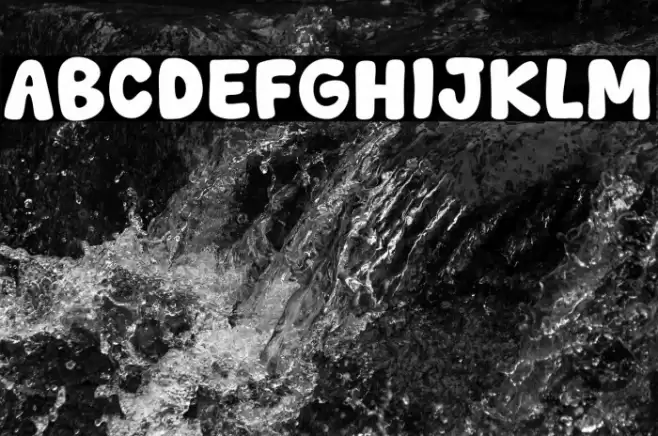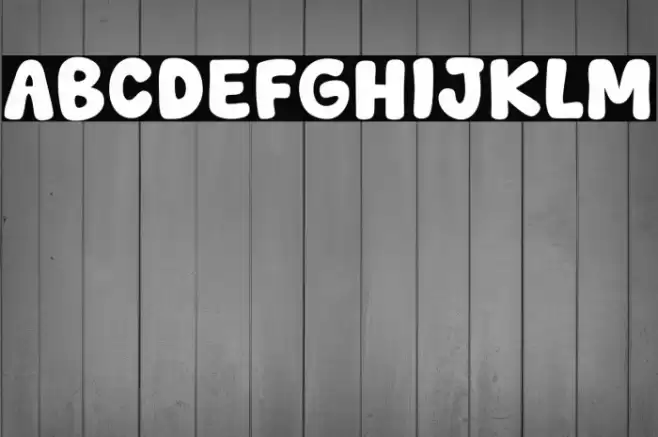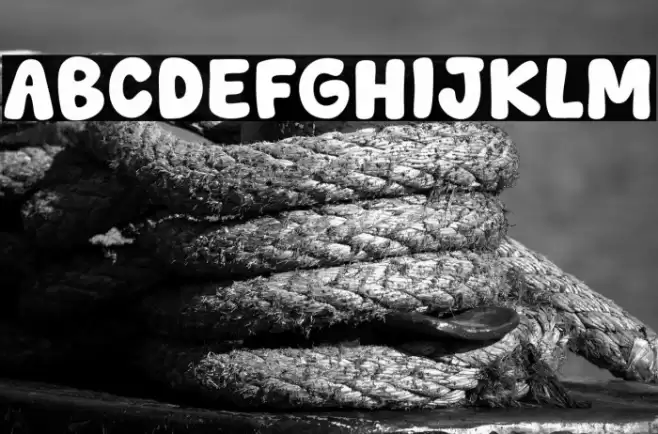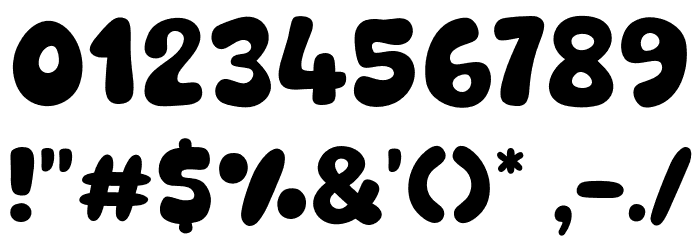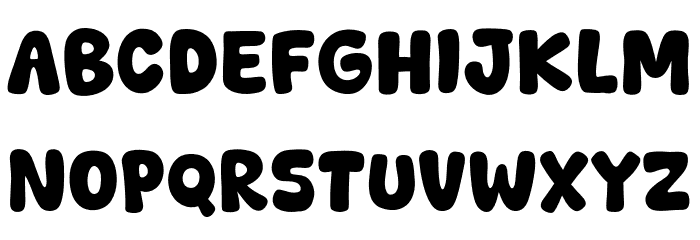
Lonely Coffee Font
Lonely Coffee Description
This playful and bold font features rounded, thick strokes that give it a friendly and approachable appearance. The characters are uniformly bold, with a slightly inflated look that adds a whimsical touch. The rounded edges and consistent stroke width contribute to a cohesive and harmonious design. This font is highly legible, making it suitable for various display purposes. The numbers and special characters maintain the same playful style, ensuring consistency across all text elements. Its unique style makes it stand out, perfect for projects that require a fun and engaging visual impact.
A bold, rounded font with a playful and whimsical style from Kids fonts.
- Font: Lonely Coffee
- Proposed Projects: Ideal for children's books, playful branding, posters, and social media graphics.
- Overall Style: Playful